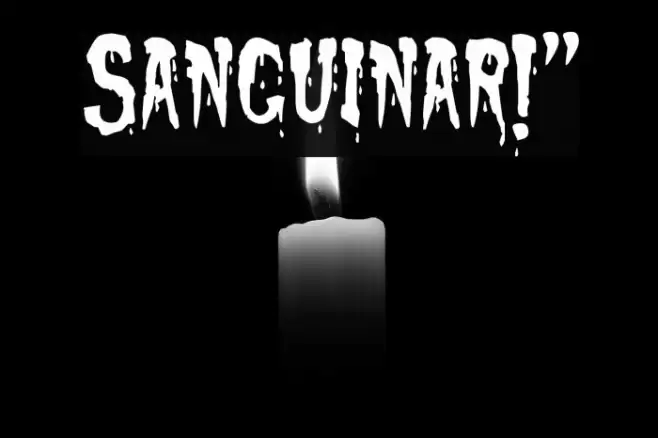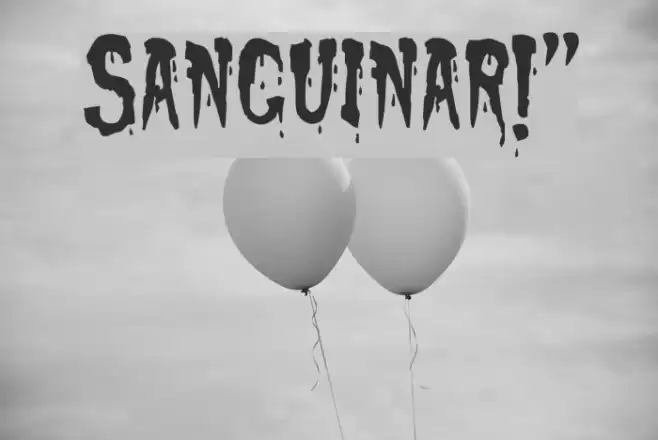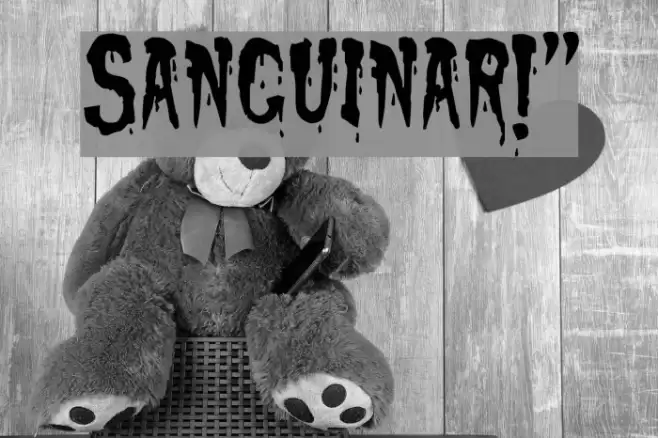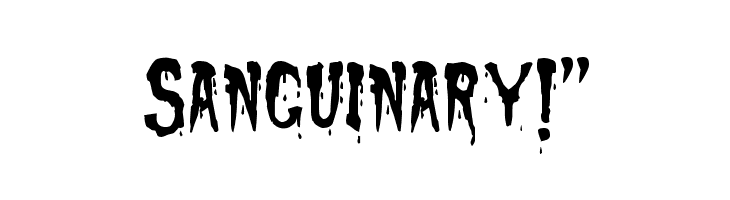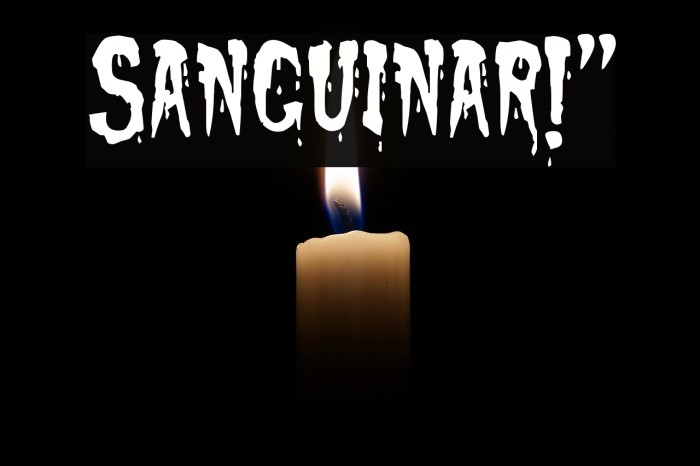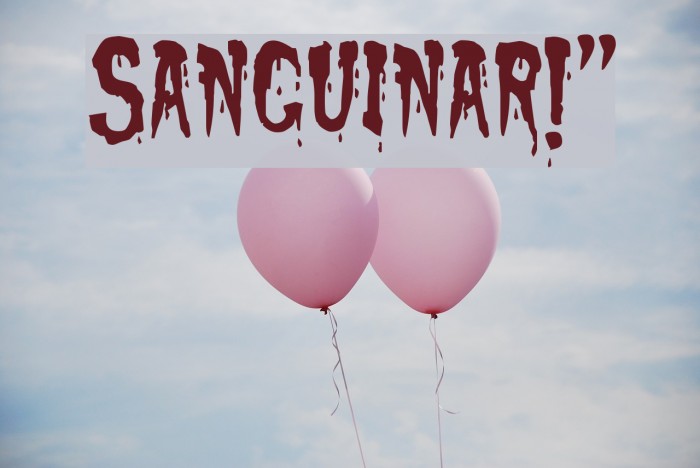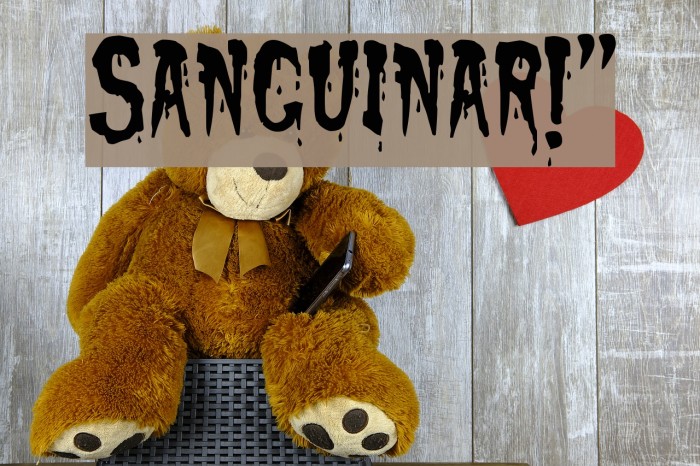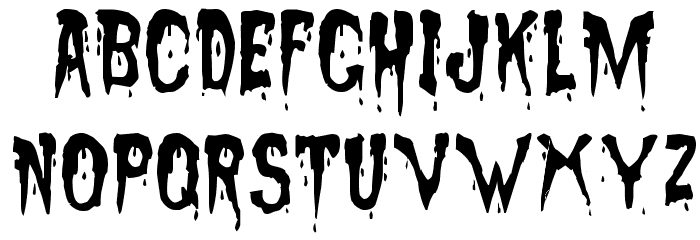
Sanguinary!" Font
Sanguinary!" Description
This font features a dramatic and eerie design, reminiscent of dripping blood or melting wax. The characters have a jagged, irregular outline that gives them a sinister and unsettling appearance, perfect for horror-themed projects. The uppercase and lowercase letters maintain a consistent style, with exaggerated serifs and uneven edges that enhance the font's unsettling aesthetic. The overall design is bold and impactful, making it suitable for attention-grabbing headlines or titles. The font's unique style is ideal for creating a chilling atmosphere in posters, book covers, or Halloween-themed graphics.
A bold, eerie font with a dripping effect, perfect for horror themes.
- Proposed Projects: Ideal for horror movie posters, Halloween invitations, spooky book covers, and themed event flyers.